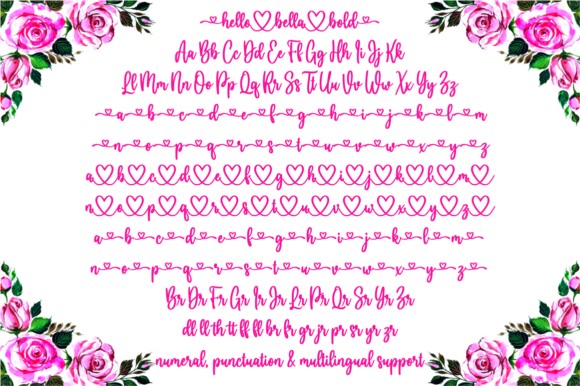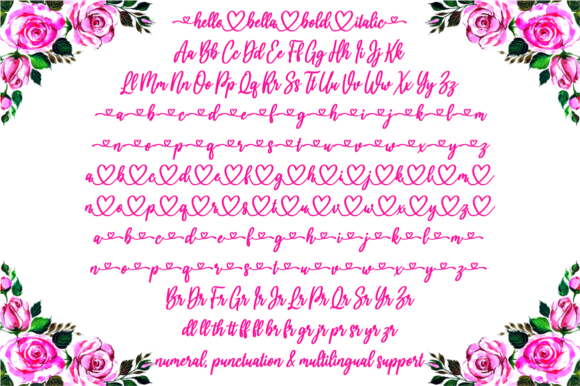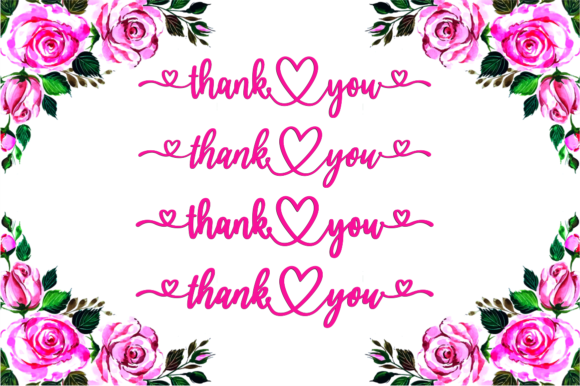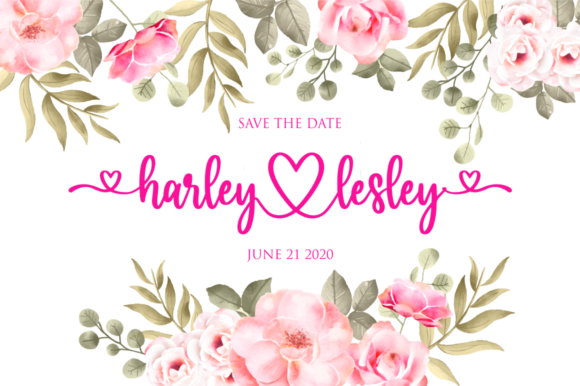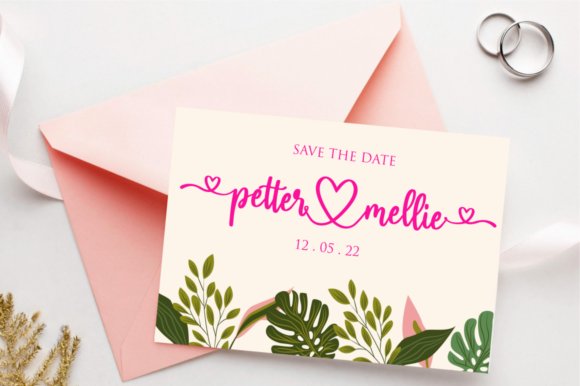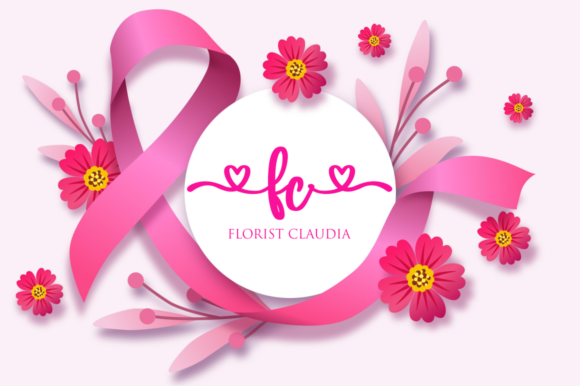
Hello Bella Font
About Hello Bella Font
Hello Bella is a beautiful handwritten font with a romantic look. Add this font to your creative ideas and notice how it will make them stand out!